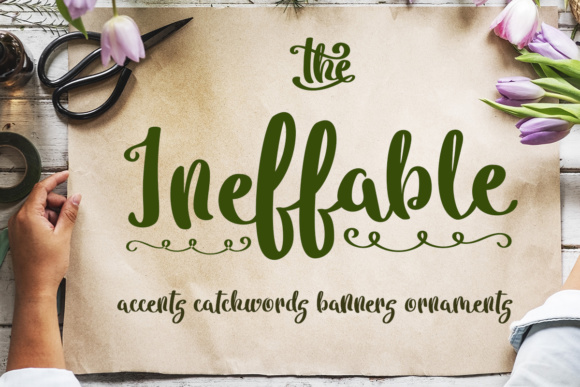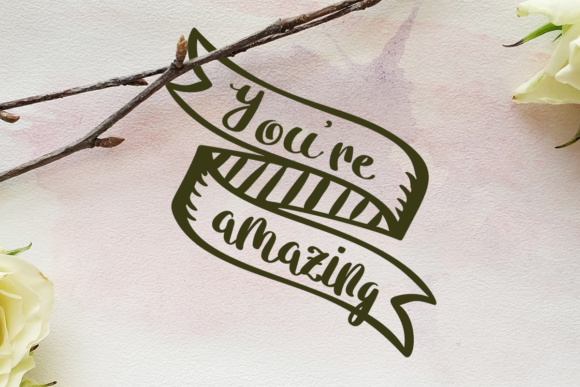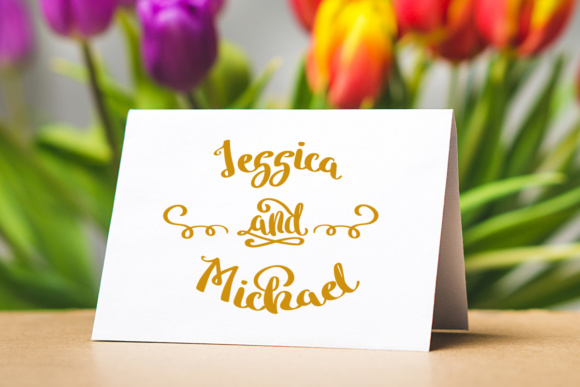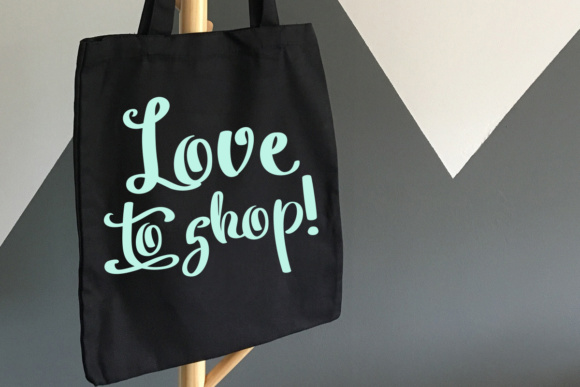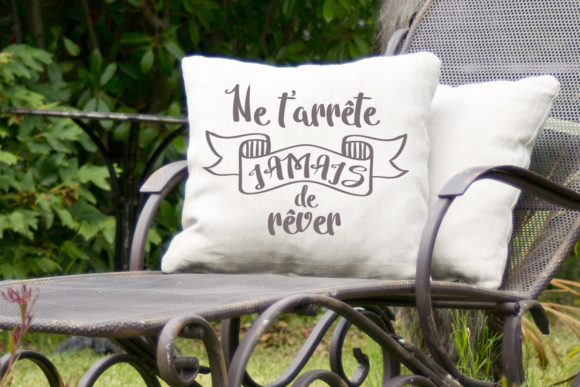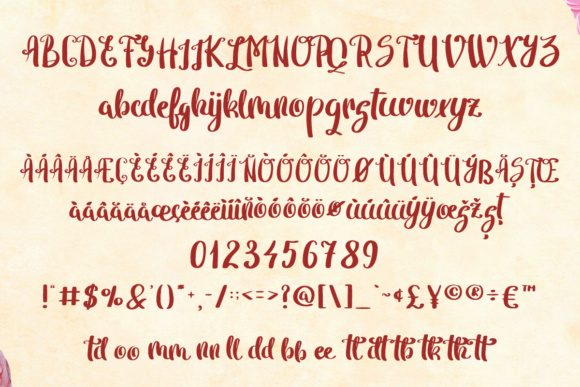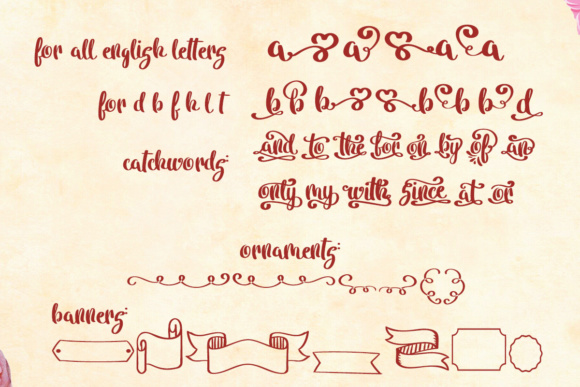
HomeScript FontsIneffable Font Script Fonts Ineffable Font FacebookXPinterestWhatsApp Ineffable Font Poster 2 Ineffable Font Poster 3 Ineffable Font Poster 4 Ineffable Font Poster 5 Ineffable Font Poster 6 Ineffable Font Poster 7 About Ineffable Font Ineffable is a playful handdrawn font that comes backed with stunning swashes, ornaments and banners. DOWNLOAD ON CREATIVE FABRICAThis font is sold and delivered by Creative Fabrica. Font Canyon may earn a commission if you buy through this link. People also explored Getih West Font Californian Beach Font Imagination Font Felicia Font Reality Sunday Font Basketball Font Autumn Breeze Font Wood Tuscan JNL Font Log Wizard 346 0 TagsIneffable Font Previous articleMonatia Script FontNext articleBelorian Font LEAVE A REPLY Cancel reply Comment: Please enter your comment! Name:* Please enter your name here Email:* You have entered an incorrect email address! Please enter your email address here Website: Save my name, email, and website in this browser for the next time I comment. Personal Use Free Retro Free Personal Use Free Read more about this font Mellow Personal Use Free Read more about this font Happy Santa Personal Use Free Read more about this font Rhetorical Personal Use Free Read more about this font BLOG Where to Buy American Fonts Online in 2024 Where to Buy American Fonts Online: The Ultimate Guide for 2024 Looking for the perfect American font to elevate your design projects? You're in the... Using Fonts in Digital Marketing: Tips to Strengthen Your Brand Identity 5 Fonts That Will Dominate Design Trends in 2026 Fonts That Capture the Spirit of New York City